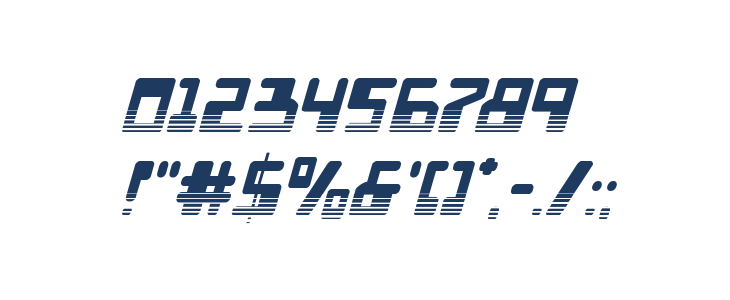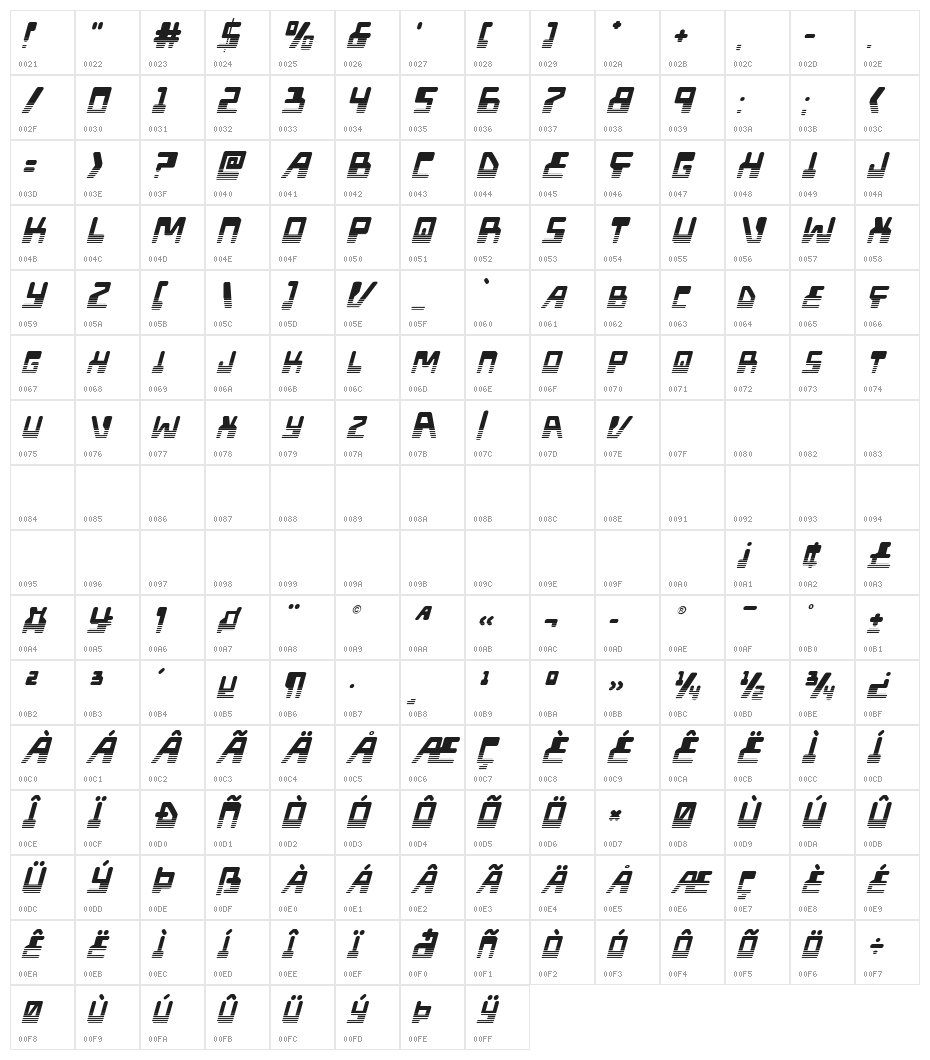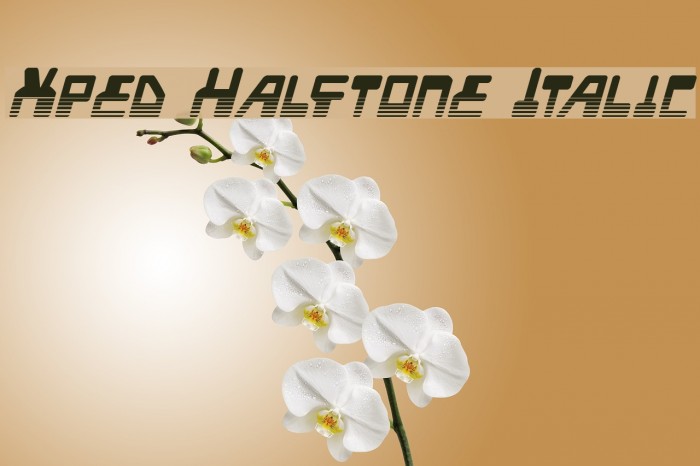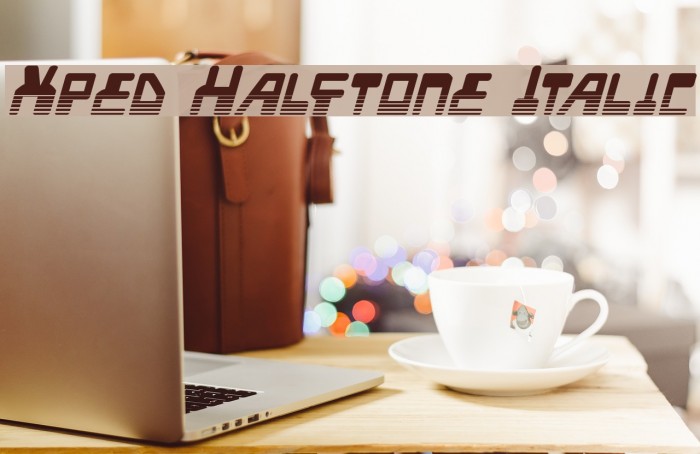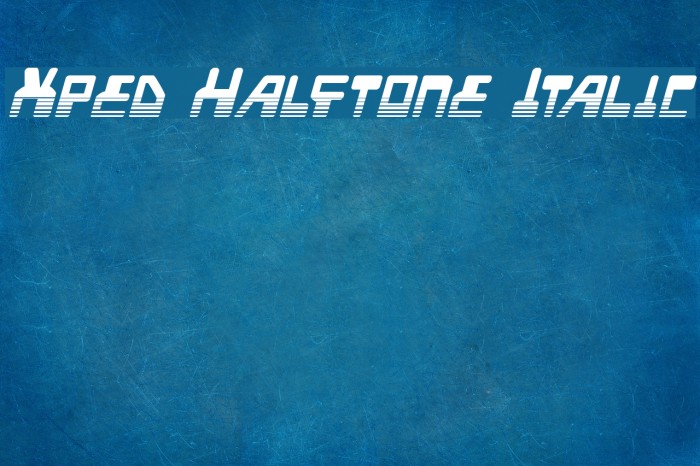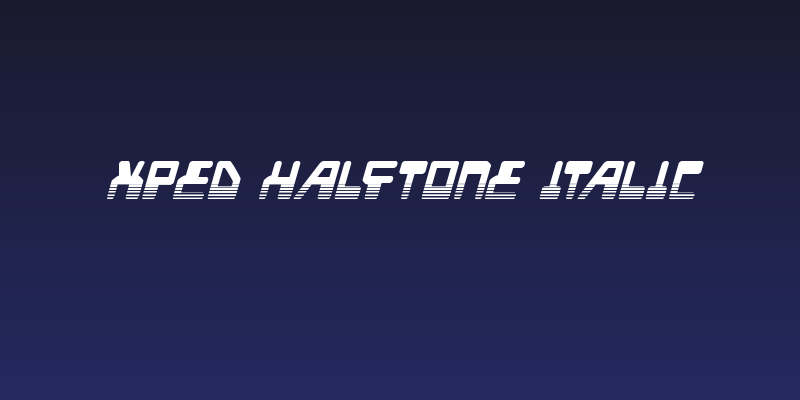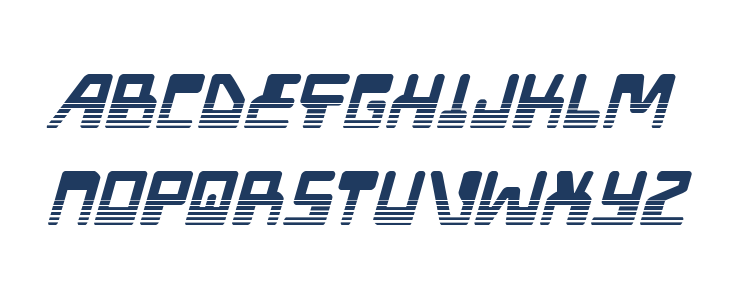
Xped Halftone Italic Font
Xped Halftone Italic Description
This font features a dynamic and futuristic design with a halftone effect that gives it a sense of movement and energy. The characters are italicized, adding a sleek and modern touch. The bold strokes and geometric shapes create a strong visual impact, making it ideal for attention-grabbing headlines or logos. The halftone pattern within each character adds texture and depth, enhancing its visual appeal. This font is perfect for projects that require a contemporary and edgy look, such as technology-related branding, sports team logos, or modern advertising campaigns.
| Overall Style | Futuristic, Modern |
| Proposed Projects | Technology branding, sports logos, modern advertising, futuristic posters. |